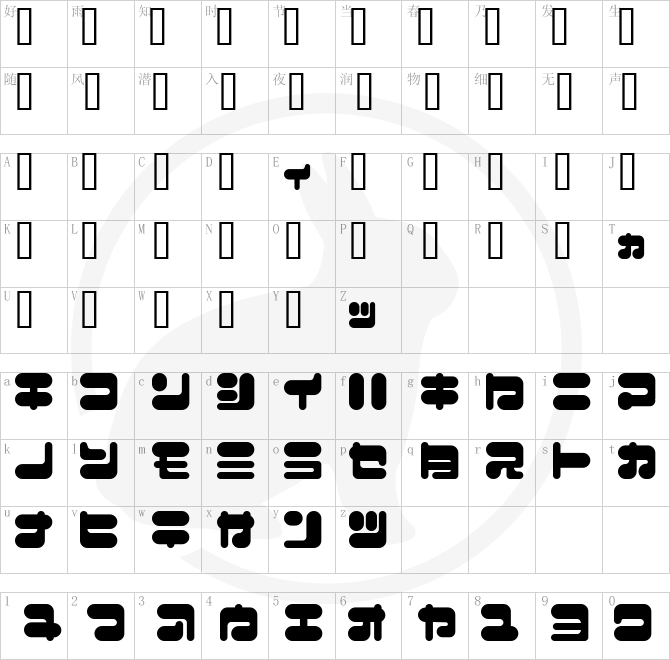
- Font Name:I2FuwafuwaFururu
I2FuwafuwaFururu-KS.ttf is a very beautiful artistic font, I2FuwafuwaFururu-KS.ttf is widely used in the design and printing of various books and pictures,I2FuwafuwaFururu-KS.ttf has a strong visual impact,I2FuwafuwaFururu-KS.ttf is a commonly used font in newspapers, magazines and books, and is used in posters, e-commerce Poster design, store design, logo design, font design and other fields.I2FuwafuwaFururu-KS.